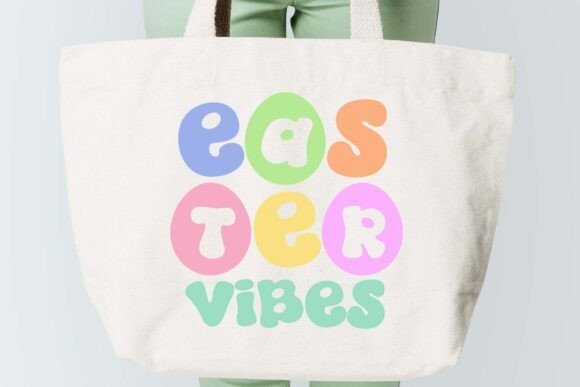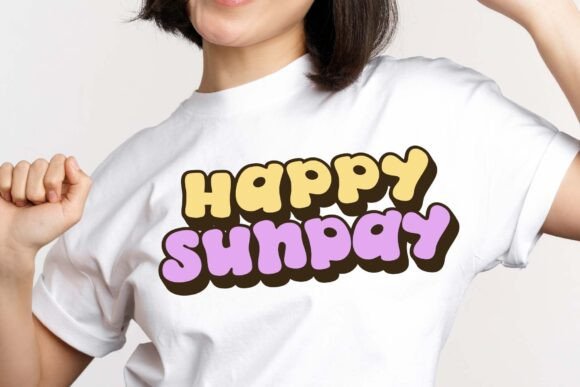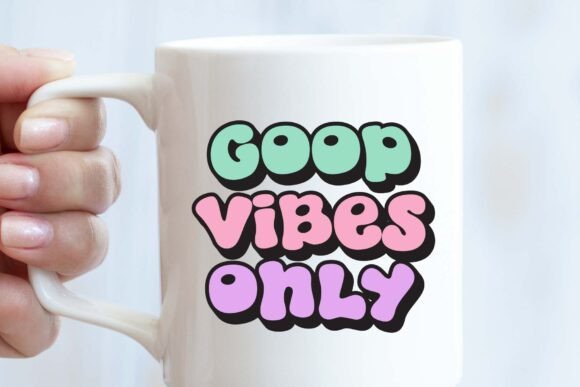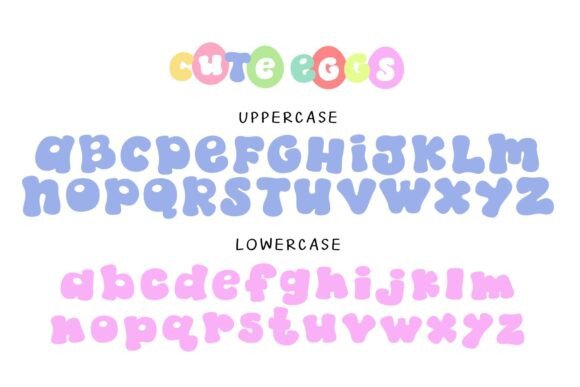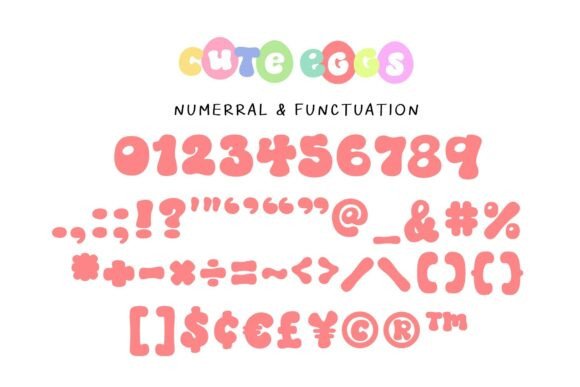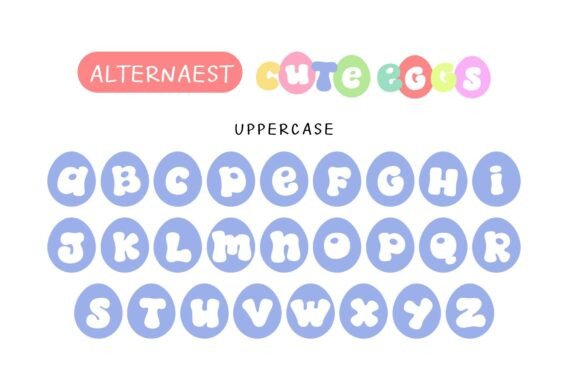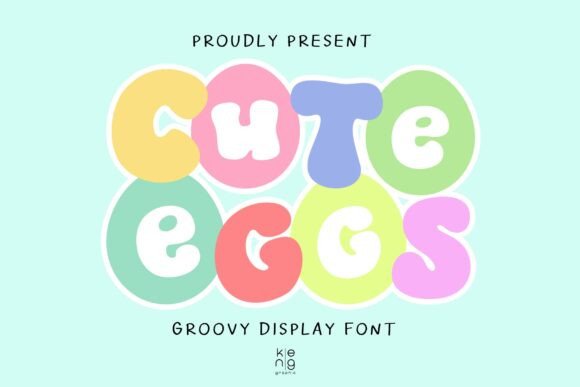
Cute Eggs Font: The Perfect Addition to Your Easter-Inspired Designs
Are you looking for a font that captures the vibrant spirit of Easter and adds a playful touch to your designs? Look no further than Cute Eggs, an invigorating display font that’s perfect for a wide range of projects. In this article, we’ll introduce you to the Cute Eggs font, explore its features, and discuss how you can use it to elevate your designs.
What is Cute Eggs Font?
Cute Eggs is a display font that embodies the essence of Easter and the captivating spirit of eggs. This font seamlessly merges a playful vibe with the vibrant colours and textures of eggs, making it a versatile choice for various design projects. Whether you’re a designer, crafter, or DIY enthusiast, Cute Eggs is the perfect addition to your font collection.
Key Features of Cute Eggs Font
- Playful and Vibrant: Cute Eggs font is designed to add a playful and vibrant touch to your designs. Its unique shape and texture make it perfect for Easter-themed projects, but it’s also versatile enough to use in other designs.
- Versatile: Cute Eggs font is suitable for a wide range of design projects, from t-shirts and tote bags to mugs and other home decor items.
- Eggstra-Special Touch: As its name suggests, Cute Eggs font is designed to add an eggstra-special touch to your designs. Its unique shape and texture make it a great way to add a personal touch to your projects.
Using Cute Eggs Font in Your Designs
Cute Eggs font is perfect for designers and crafters who want to add a playful and vibrant touch to their projects. Here are some ideas for using Cute Eggs font in your designs:
- T-Shirts: Add a playful touch to your t-shirt designs with Cute Eggs font. It’s perfect for Easter-themed designs, but you can also use it for other fun and playful designs.
- Tote Bags: Cute Eggs font is a great addition to tote bag designs. Add a unique edge to your tote bags with this fun and playful font.
- Mugs: Enhance the appeal of your favourite mug with Cute Eggs font. It’s a great way to add a personal touch to your home decor items.
- DIY Projects: Cute Eggs font is perfect for DIY enthusiasts who want to add a personal touch to their projects. Use it for scrapbooking, card making, and other paper crafts.
Tips for Getting the Most Out of Cute Eggs Font
Here are some tips for getting the most out of Cute Eggs font:
- Experiment with Colours: Cute Eggs font looks great in bright and pastel colours. Experiment with different colours to find the perfect combination for your design.
- Mix and Match: Cute Eggs font is versatile enough to use with other fonts. Experiment with mixing and matching different fonts to create a unique look.
- Add Texture: Add texture to your design by using Cute Eggs font with other textures and patterns.
Cute Eggs font is a versatile and fun display font that’s perfect for Easter-themed designs and other projects. Its unique shape and texture make it a great way to add a playful and vibrant touch to your designs. Whether you’re a designer, crafter, or DIY enthusiast, Cute Eggs font is a great addition to your font collection. So why not give it a try and see how it can elevate your designs?
Unleash your creativity and let Cute Eggs font make your designs shine. With its playful vibe and captivating essence of eggs, Cute Eggs font is sure to become a favourite in your font collection.